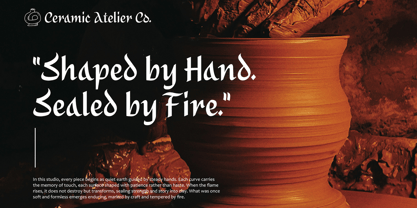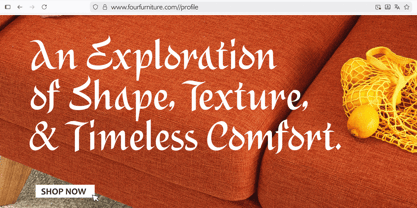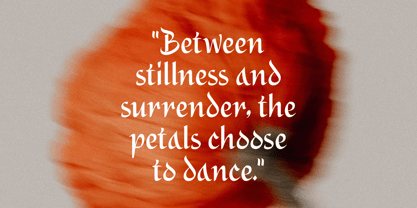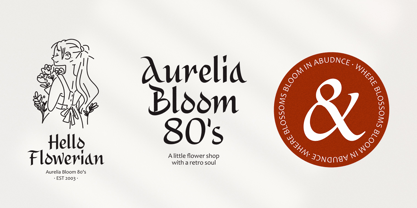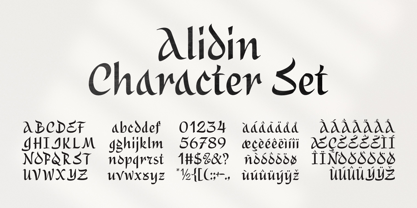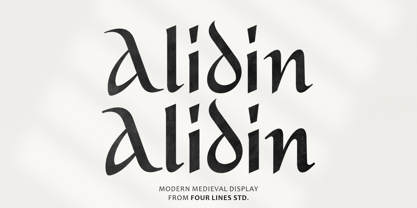
Alidin
by Four Lines Std
The Alidin Font Family was designed by Zain Fahroni and published by Four Lines Std. Alidin contains 2 styles and family package options.
Alidin is a modern medieval display font featuring strong ornamental details and distinctive letterforms. Designed to bring a classic heritage feel with a refined contemporary touch, Alidin stands out with its bold presence and decorative character. Perfect for logos, branding, packaging, posters, editorial layouts, merchandise, and heritage-inspired projects. Its expressive shapes make it ideal for headlines and large display settings where personality matters most. Alidin delivers a unique balance between historical influence and modern versatility, making it suitable for both classic and contemporary design concepts.